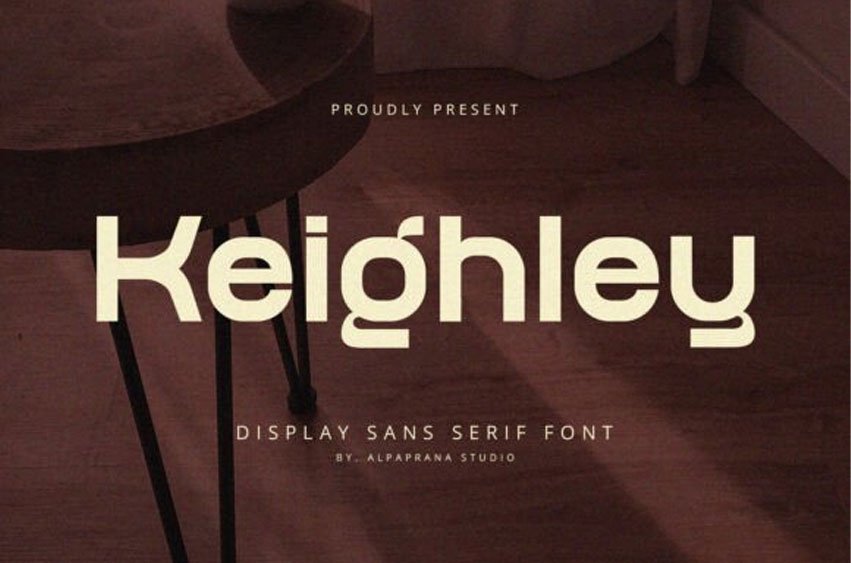
Keighley Font is a display sans serif font with elegant and modern feels.
It will be perfectly used for magazines, packaging, posters, shopping bags, t-shirts, book covers, photography, special events, and other design projects.